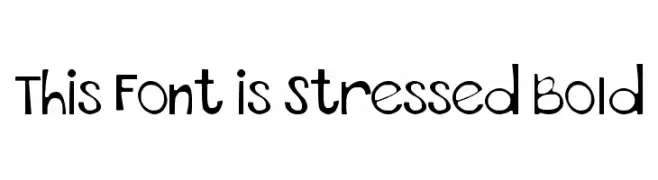
( DJB Fonts - Darcy Baldwin - darcybaldwin.com )
A playful, bold font with a hand-drawn, whimsical style.
( Eddy Glyn Lucas - www.findingyogurt.blogspot.com )
A playful, hand-drawn font with quirky, uneven strokes and a whimsical style.
( FancyFrenzy - Francy van Lierop )
A playful, irregular handwritten font with a whimsical and informal style.
( Hazel Abbiati - diamondidiocy.tumblr.com )
A bold, pixelated outline font with a retro digital style.
( Hazel Abbiati - diamondidiocy.tumblr.com )
A pixelated, blocky font with a retro digital aesthetic and shadow effect.
( Hazel Abbiati - diamondidiocy.tumblr.com )
A pixelated, retro-style font reminiscent of early digital displays.
( Hazel Abbiati - diamondidiocy.tumblr.com )
A pixelated, retro-style font with a blocky, digital appearance.
( JoeeCreative - Joe Creative - creativemarket.com/JoeeCreative )
A bold, elegant script font with flowing, cursive design.
( Joz Gandoz - creativemarket.com/jozgandoz )
A lively and dynamic script font with bold, connected letterforms.
( Joz Gandoz - creativemarket.com/jozgandoz )
A playful, handwritten font with fluid and dynamic strokes.